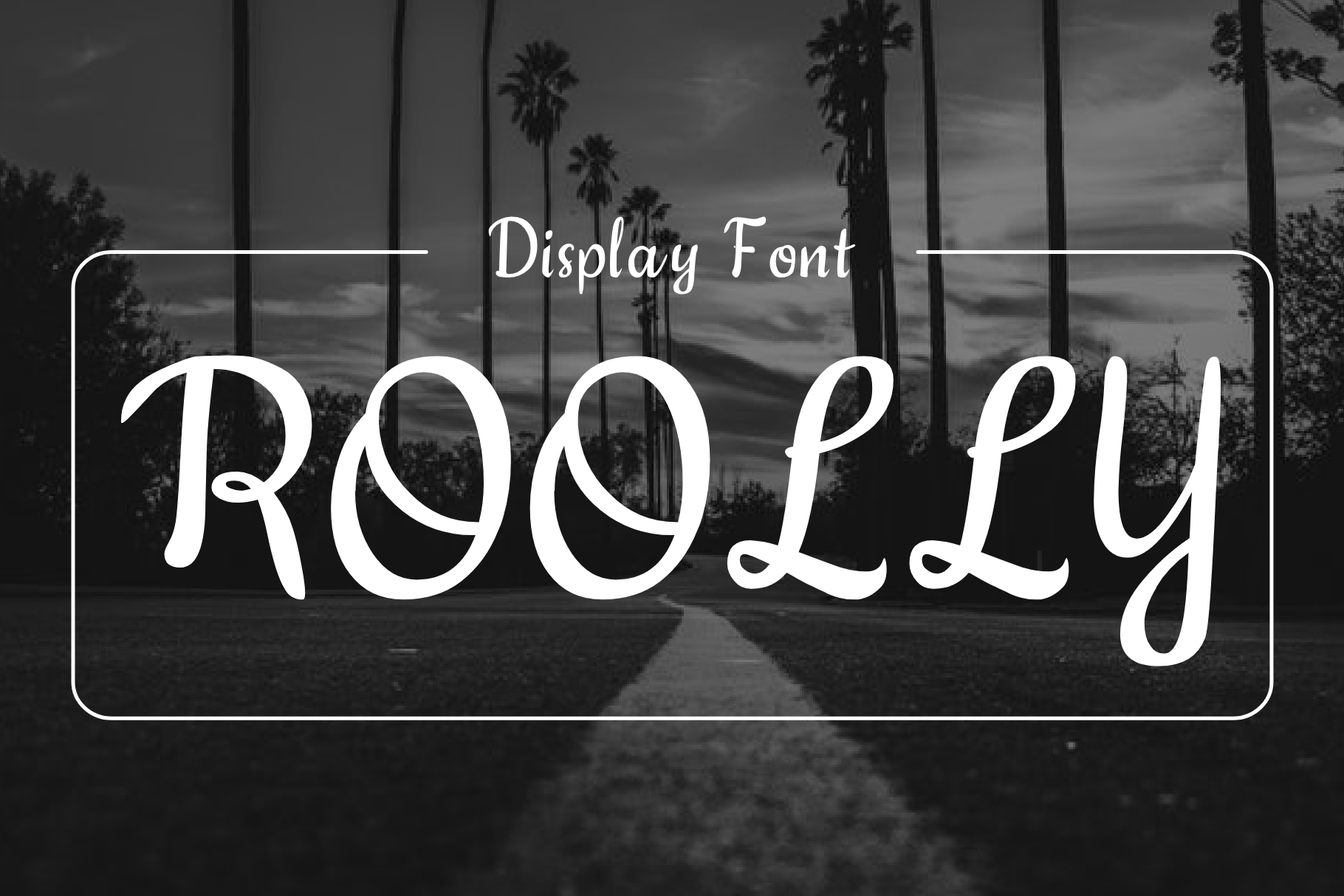
Roolly - Modern Typeface
Roolly - beautifully crafted modern typeface with 2 styles (regular & italic) for your awesome projects
- Consistency
- Well organized
- Easy to use